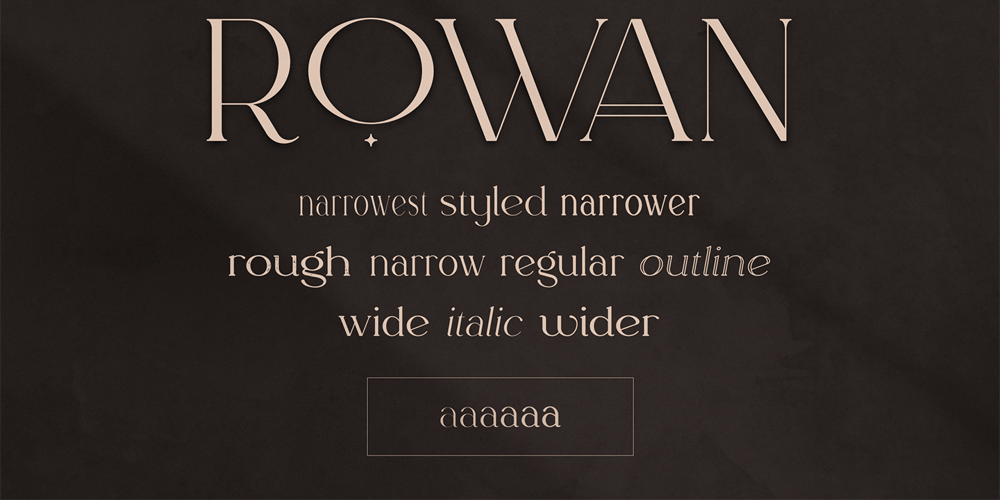
Rowan Font Family was designed by Vladimir Fedotov, Plamen Petrov and published by VP Creative Shop. Rowan contains 117 styles and family package options. Introducing Rowan – Elegant typeface. 116 font styles included and 1 scriptRowan is elegant and retro typeface loaded with 116 font styles (narrowest, narrower, narrow, regular, wide, wider, rough, outline and script with 6 weights) 87 languages support, alternate and ligature glyphs to make you typography truly unique!Language Support : Afrikaans, Albanian, Asu, Basque, Bemba, Bena, Breton, Chiga, Colognian, Cornish, Czech, Danish, Dutch, Embu, English, Estonian, Faroese, Filipino, Finnish, French, Friulian, Galician, Ganda, German, Gusi,i Hungarian, Indonesian, Irish, Italian, Jola-Fonyi, Kabuverdianu, Kalenjin, Kamba, Kikuyu, Kinyarwanda, Latvian, Lithuanian, Lower Sorbian, Luo, Luxembourgish, Luyia, Machame, Makhuwa-Meetto, Makonde, Malagasy, Maltese, Manx, Meru, Morisyen, North Ndebele, Norwegian, Bokmål, Norwegian, Nynorsk, Nyankole, Oromo, Polish, Portuguese, Quechua, Romanian, Romansh, Rombo, Rundi, Rwa, Samburu, Sango, Sangu, Scottish, Gaelic, Sena, Shambala, Shona, Slovak, Soga, Somali, Spanish, Swahili, Swedish, Swiss, German, Taita, Teso, Turkish, Upper, Sorbian, Uzbek (Latin), Volapük, Vunjo, Walser, Welsh, Western Frisian, ZuluFEATURES Uppercase, lowercase, numeral, punctuation & Symbol ligature glyphs alternates Narrowest – regular, italic and styled with 6 weights Narrower – regular, italic and styled with 6 weights Narrow – regular, italic and styled with 6 weights Regular – regular, italic and styled with 6 weights Wide – regular, italic and styled with 6 weights Wider – regular, italic and styled with 6 weights 1 script 2 rough styles 6 outline fonts Multilingual support – 87 languages No special software is required to type out the standard characters of the Typeface. How to access alternate glyphs?To access alternate glyphs in Adobe InDesign or Illustrator, choose Window Type & Tables GlyphsIn Photoshop, choose Window Glyphs. In the panel that opens, click the Show menu and choose Alternates for Selection. Double-click an alternate’s thumbnail to swap them out.Feel free to contact me if you have any questions!Mock ups and backgrounds used are not included.Thank you! Enjoy!